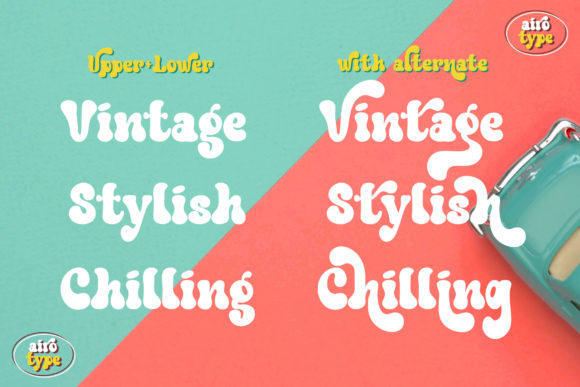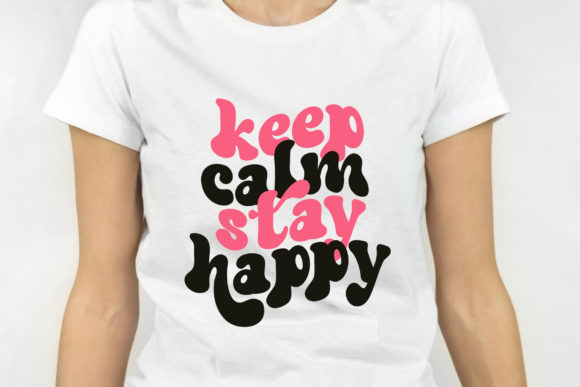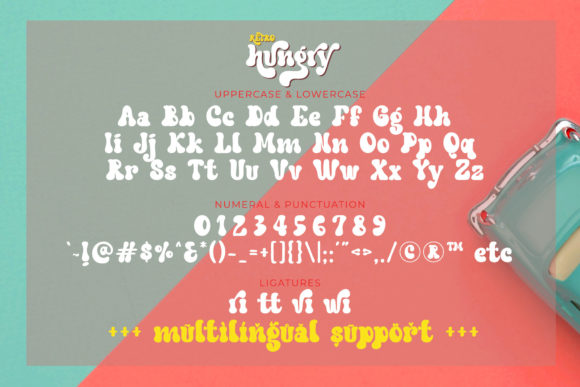
Retro Hungry is a fresh yet groovy styled display font. It is perfect for projects, logos, crafting, wedding invitation, branding, sticker, sublimation, and many more. This font is PUA encoded which means you can access all glyphs and swashes with ease!
Retro Hungry Font